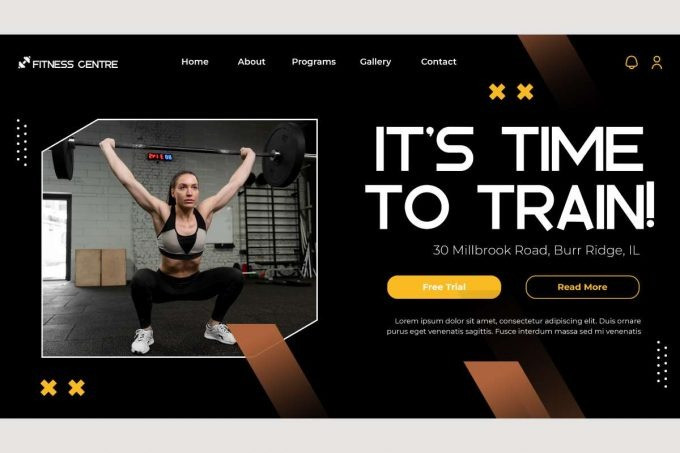
Granita Sans Serif Font is a unique stylish sans serif display font, designed by VinType Studio. The lowercase letters in this font have a circular shape so they give a unique impression that won’t be boring. It will be suitable for many industries, such as café, event organizer, fashion, homeware, kids stuff, movie, printing, restaurant, sport, etc.
Granita Font includes full set of Uppercase and Lowercase Basic Character, Numerals and Punctuation. This font also has Alternate character with four styles that will add variety to your designs, such as body text, brand logo, brochure, business card, header, invitation, label, poster, product packaging, quote, screen printing, signage, stationery, website, and more!